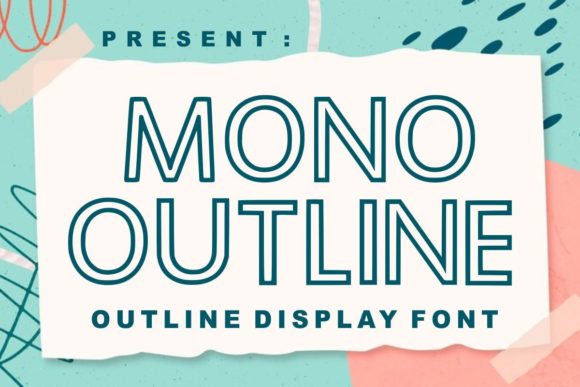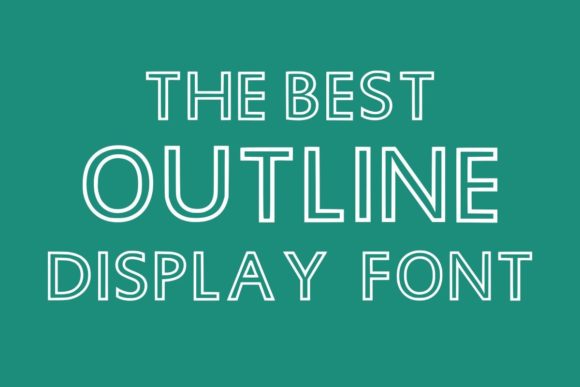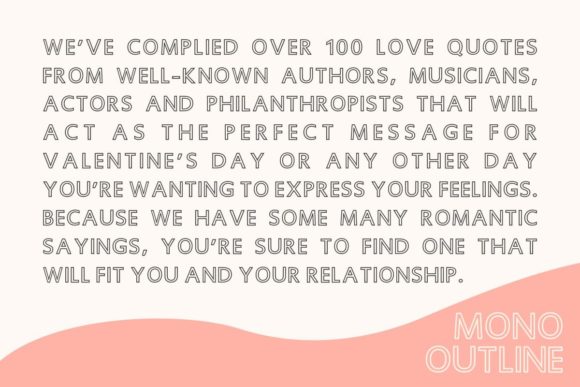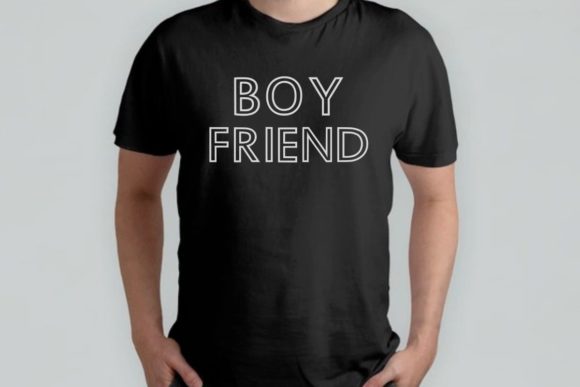
Mono Outline Font: A Modern & Minimalist Display Typeface
About the Mono Outline Font
Step up your design game with Mono Outline Font, a font that exudes confidence and style. Mono Outline is an assertive and adaptable display font. It is easy to read and conveys impeccable friendliness. Whether you’re using it for crafts, digital design, presentations, or making greeting cards, this font has the potential to become your favorite go-to font.
Mono Outline’s friendly assertiveness makes it ideal for headlines, logos, and short-form text in branding materials and posters. Its clear outlines ensure readability even at larger sizes. However, its bold style is less suitable for body text or UI elements requiring extended reading.
For a balanced design, pair Mono Outline with a clean sans-serif like Open Sans for body copy, or a classic serif such as Garamond for a more traditional feel. A playful script font could also create an interesting contrast, depending on the project’s overall tone.
The font’s personality is best described as bold yet approachable, making it a strong choice for brands that want to project confidence without appearing austere.
Mono Outline Font Usage Examples
Mono Outline Font Example